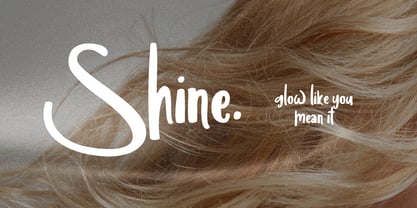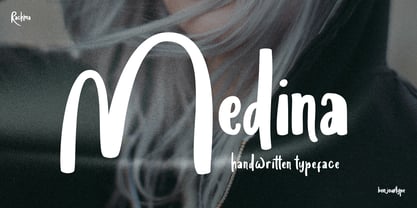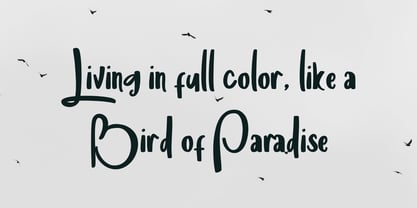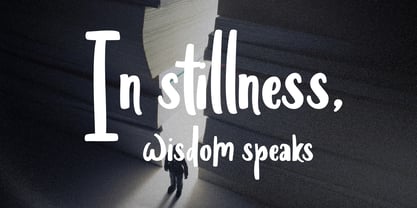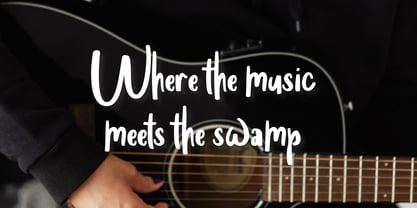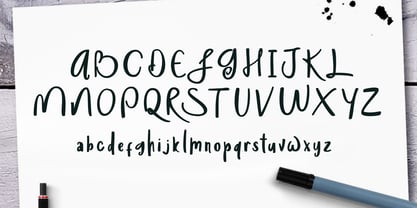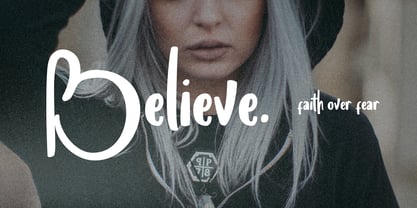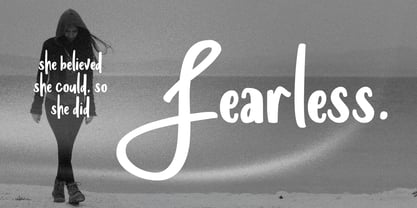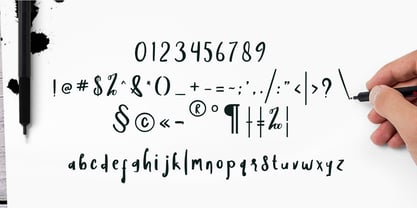
Medina Handwritten
La familia tipográfica Medina Handwritten fue diseñada por Rachma y publicada por BonjourType. Medina Handwritten contiene 1 estilos. Más información sobre esta familia
Medina – Playful & Bold Handwritten Font Medina is a lively and unique handwritten font that brings bold personality to your creative projects. Its playful, asymmetrical letterforms make it perfect for branding, packaging, social media graphics, invitations, and more. Add Medina to your design toolkit and watch your ideas come alive with energy and charm! This font is PUA encoded, giving you easy access to all available glyphs, stylistic alternates, and swashes—perfect for creating eye-catching headlines or decorative lettering. Perfect for: logos, posters, social media posts, stationery, t-shirts, packaging, scrapbooking, quotes, and creative projects of all kinds.